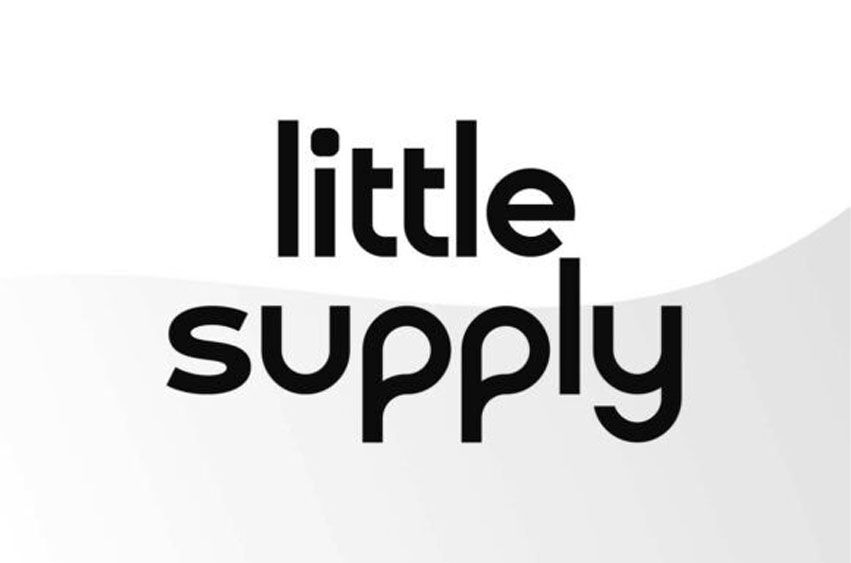
Little Supply Font
Little Supply Font Introduce a clean, friendly, and ultra-modern aesthetic to your design system with Little Supply, a minimalist rounded sans-serif font. Striking an exceptional balance between geometric precision and playful charm, this heavy-weight typeface features thick, solid structural bars defined by perfectly pillowed corners and smooth, continuous curves. Its high x-height and tight, optimized character tracking give text blocks an incredibly solid, cohesive visual footprint that commands attention instantly.
Engineered with flawless scannability and structural clarity, Little Supply strips away traditional design clutter to focus on soft, approachable block layouts. This modern lowercase-driven display typeface acts as an absolute powerhouse asset for contemporary tech startup branding, friendly app user interfaces, modern nursery or children’s brand logos, clean food and beverage packaging design, creative lifestyle blog headers, and trendy social media title graphics.